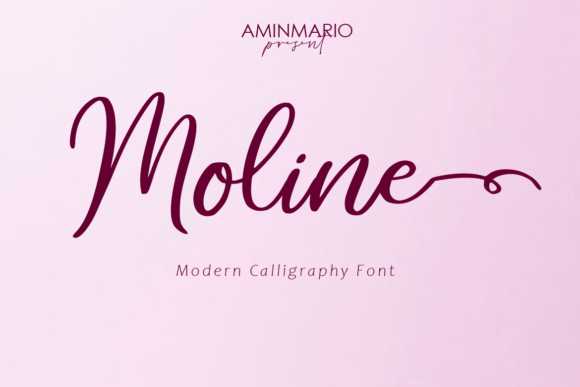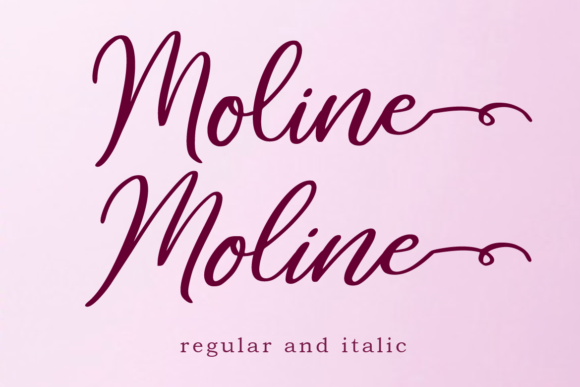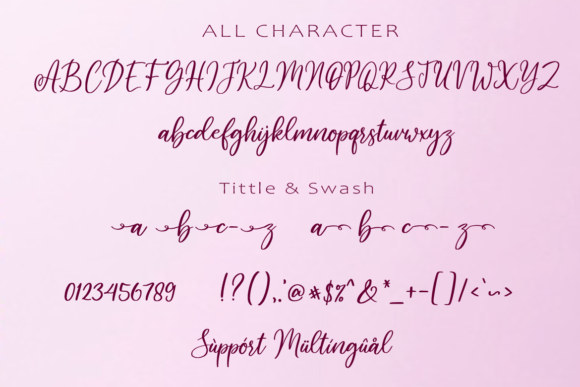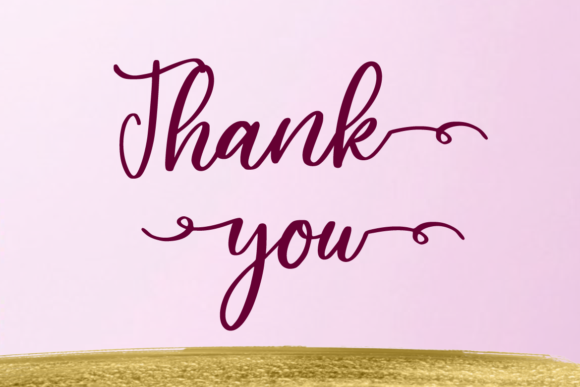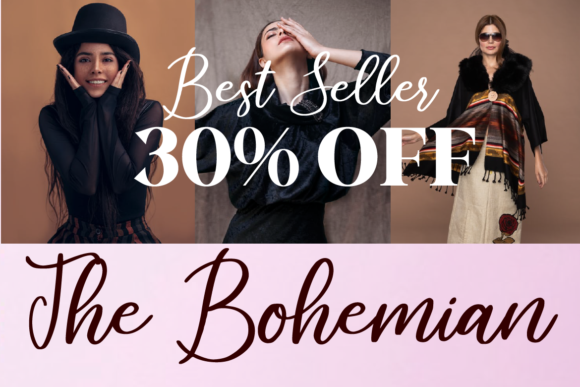
About Moline Font
Moline is a modern calligraphy font. Comes with regular and italic, also support multilingual. This is suitable for branding, header, quotes, invitations, stationery, wedding design, logos, watermarks on photography, signatures, advertisement, album covers, business cards, clothing, magazines, posters, and more!